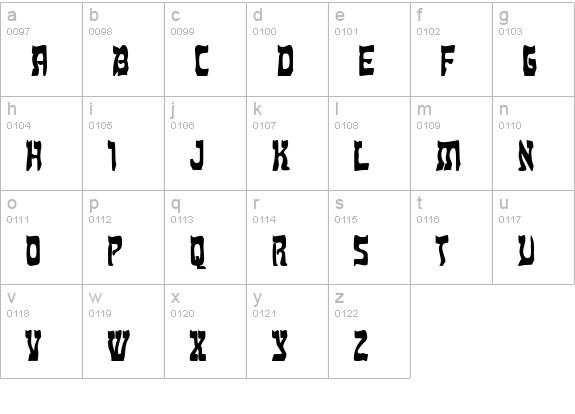
Kosher Condensed Bold is a strong, high-contrast, condensed-width variant in the Kosher typeface family \xE2\x80\x94 well suited to headlines, attention-grabbing titles, and strong calls-to-action.
Introducing Kosher Condensed Bold font, a sleek and modern typeface designed to make a bold statement in any project. This versatile font features a condensed design that exudes confidence and sophistication, making it perfect for headlines, posters, branding, and more. The bold weight of Kosher Condensed Bold adds a strong and impactful presence to any text, ensuring that your message is noticed and remembered. What's even better is that Kosher Condensed Bold font is available for free download at FontsMarket.com. Now you can elevate your designs with this stylish and eye-catching font without breaking the bank. Whether you're a designer looking to add a touch of flair to your projects or a business owner in need of a standout logo, Kosher Condensed Bold font has got you covered. Download it today and unleash the power of bold typography in your work.